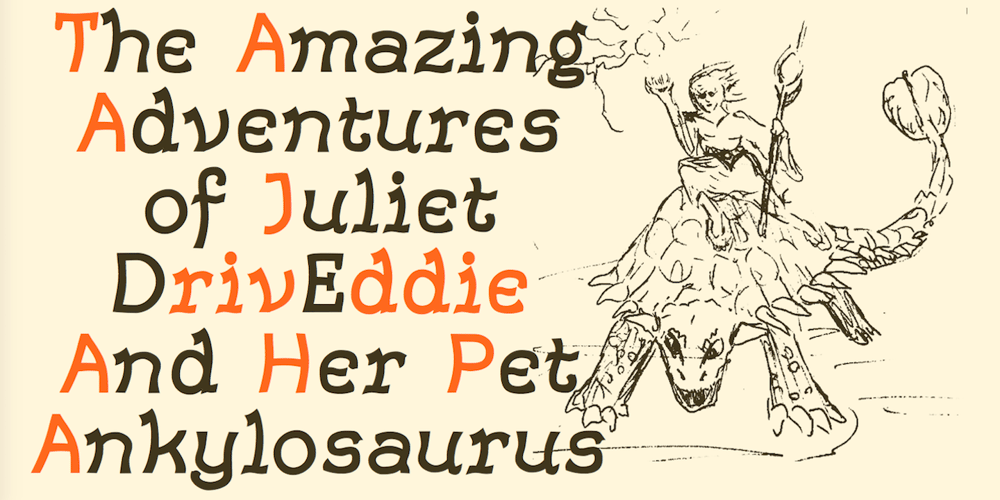
Drive Eddie
Drive Eddie font
Drive Eddie Font Family was designed by Robert Schenk and published by Ingrimayne Type. Drive Eddie contains 6 styles and family package options. DrivEddie was an attempt to create a rough, hand-drawn typeface that was quirky but easily readable. It has a few serifs so it is almost but not quite san serif. All vertical stems are curved. For almost 25 years DrivEddie was a one-font family and one-font families often have limited applications. In 2020 I returned to this typeface to increase its possible uses by adding five new styles: italic, semibold, semibold-italic, bold, and bold-italic. I also corrected mistakes and added characters.